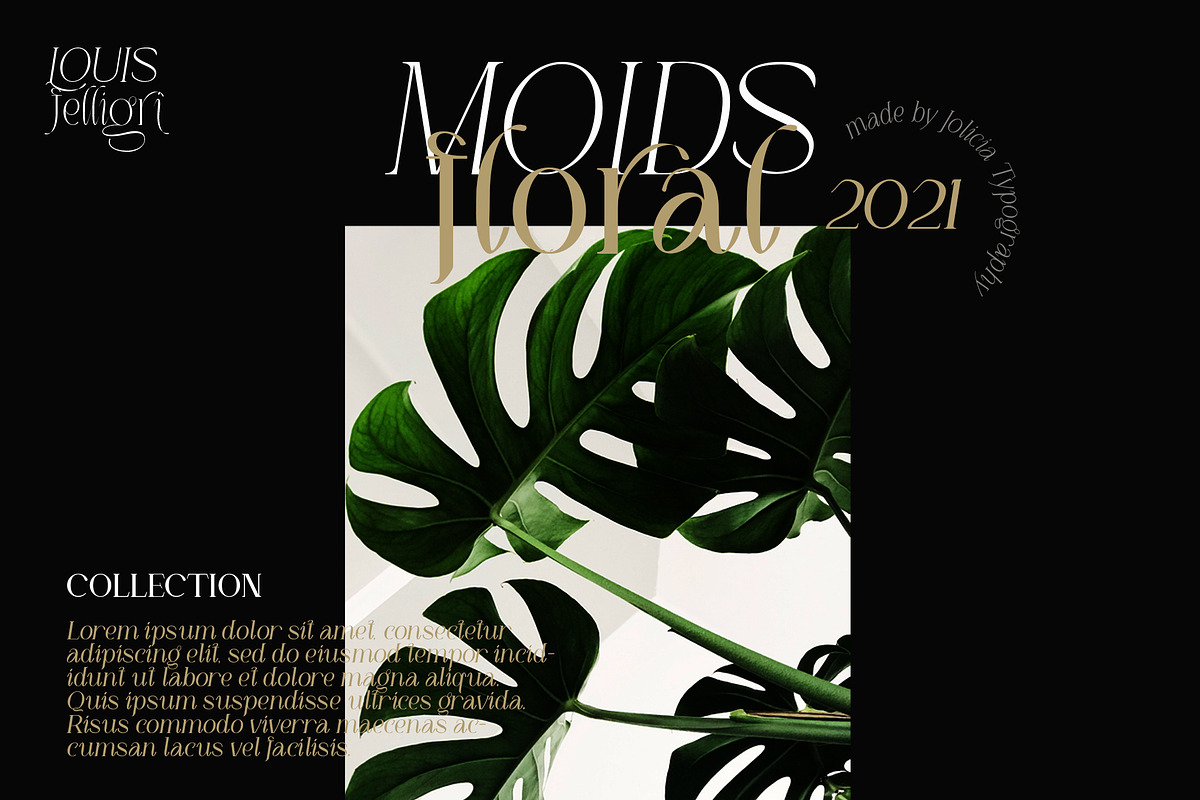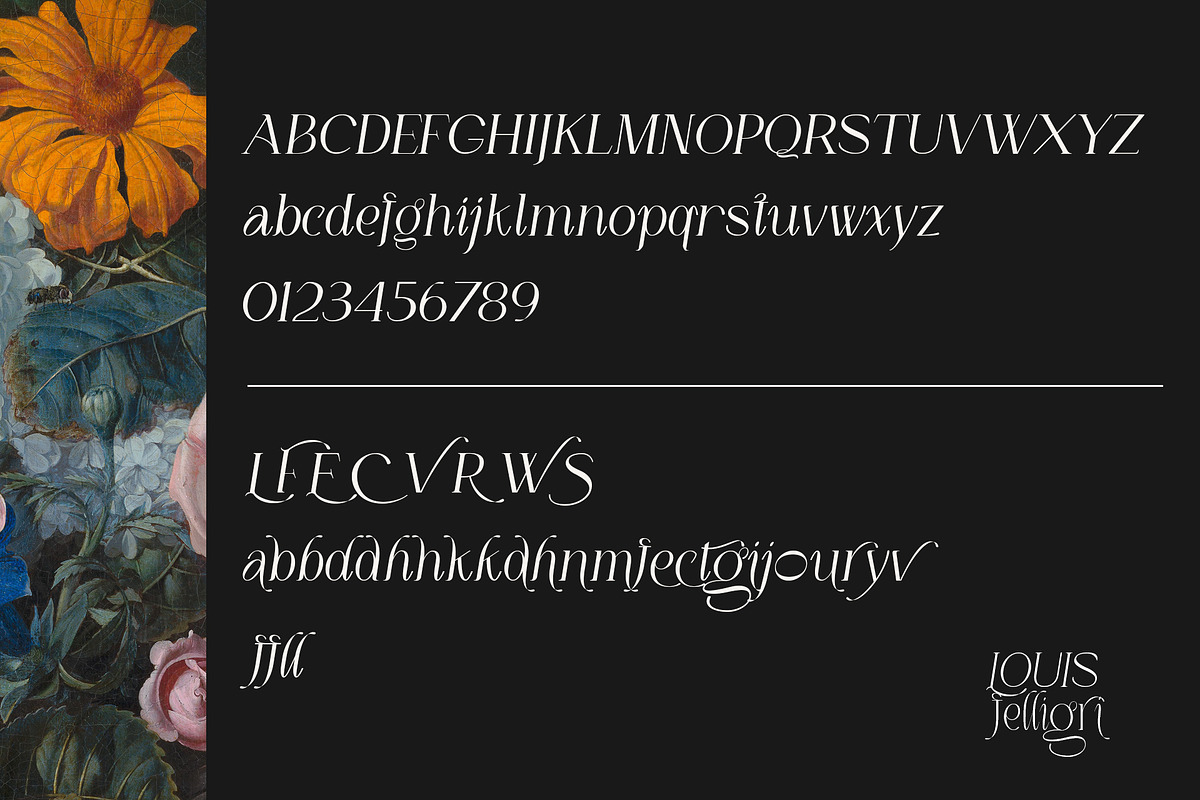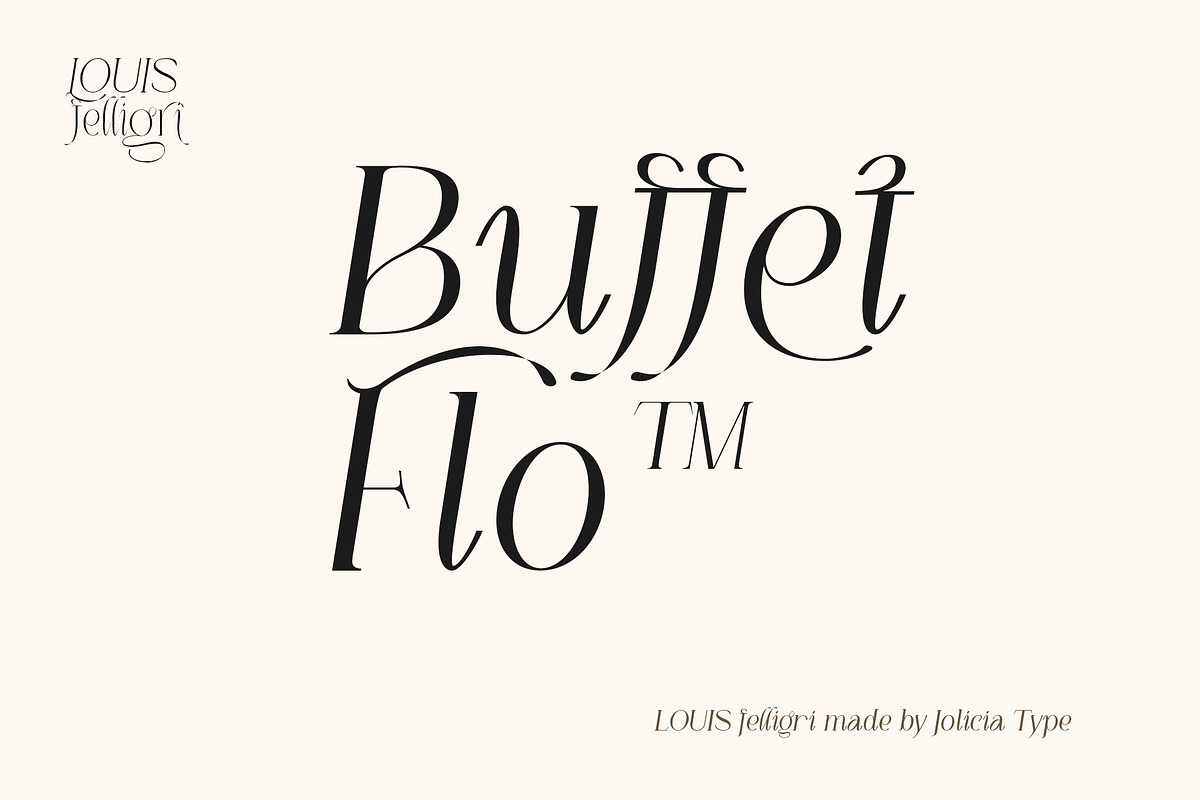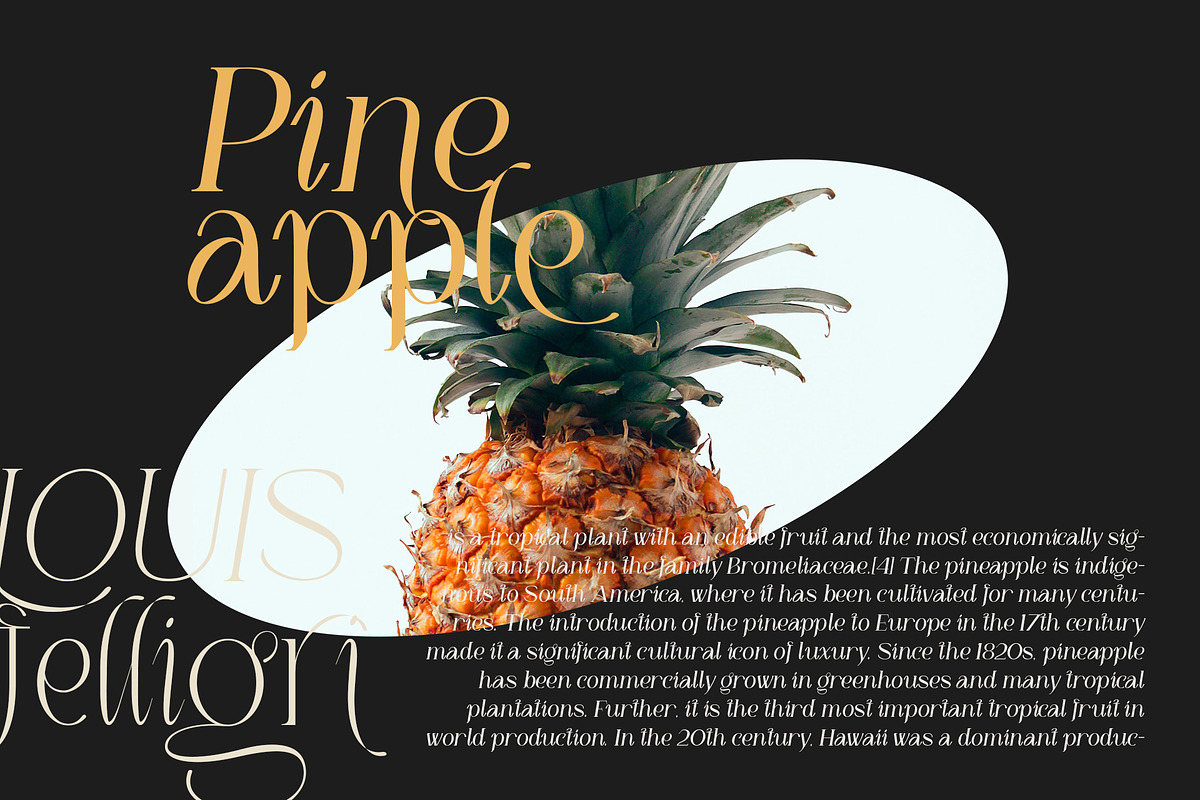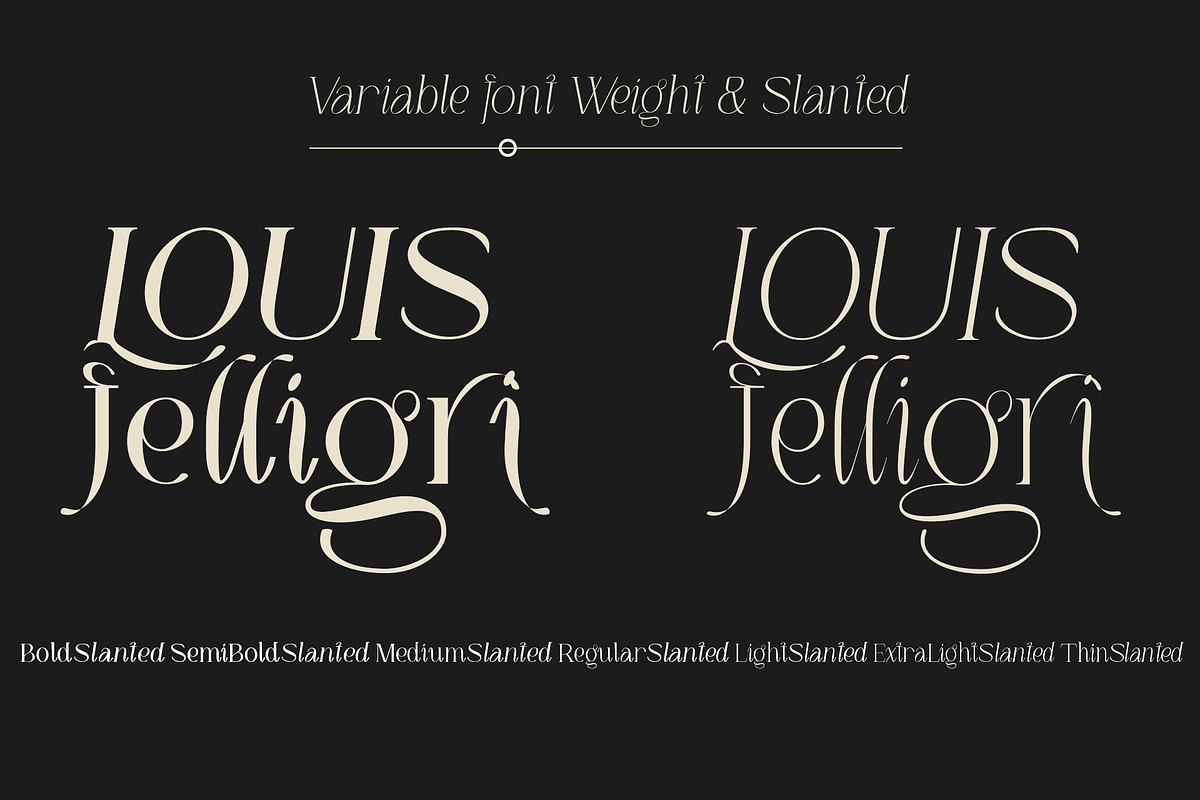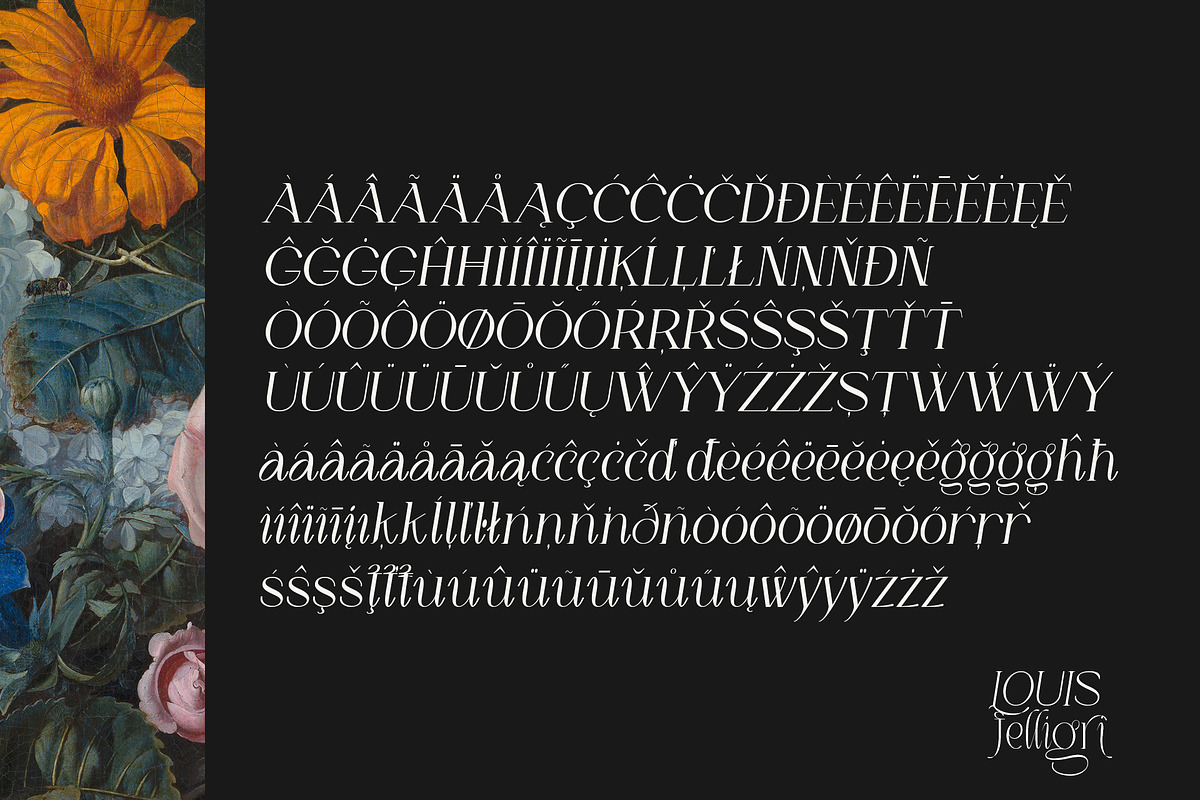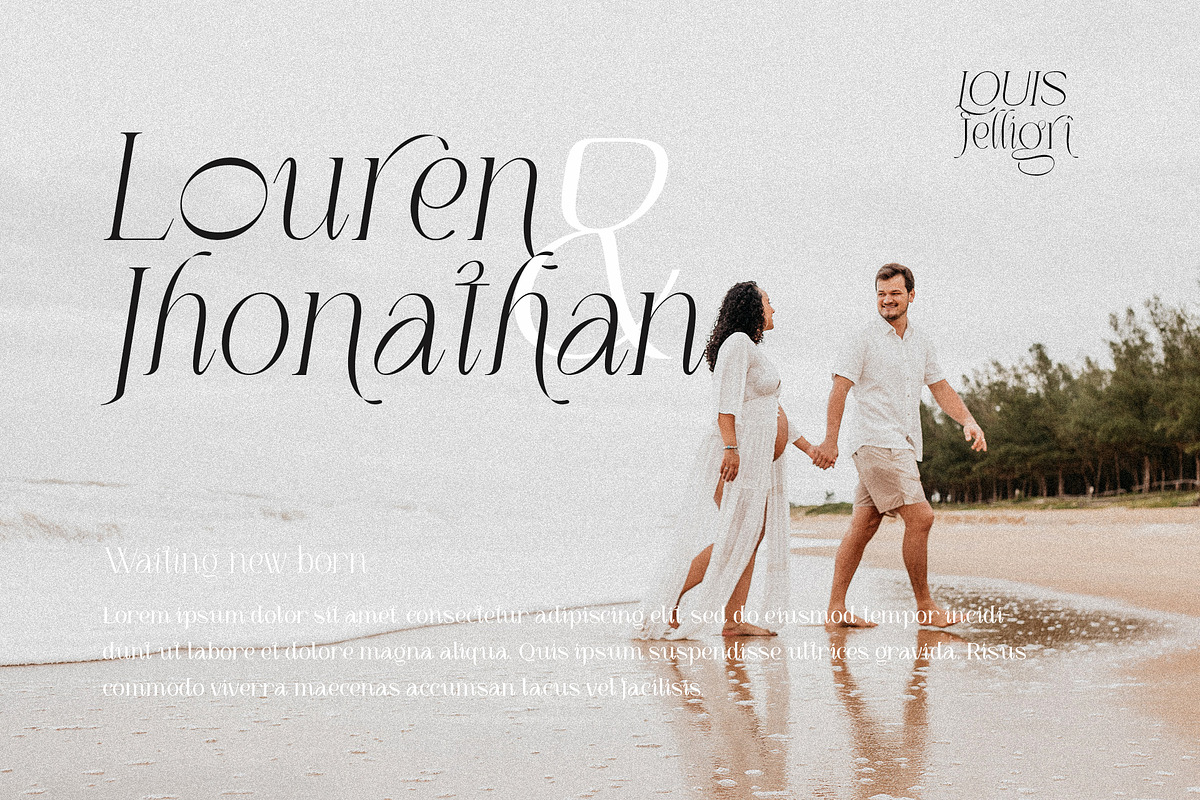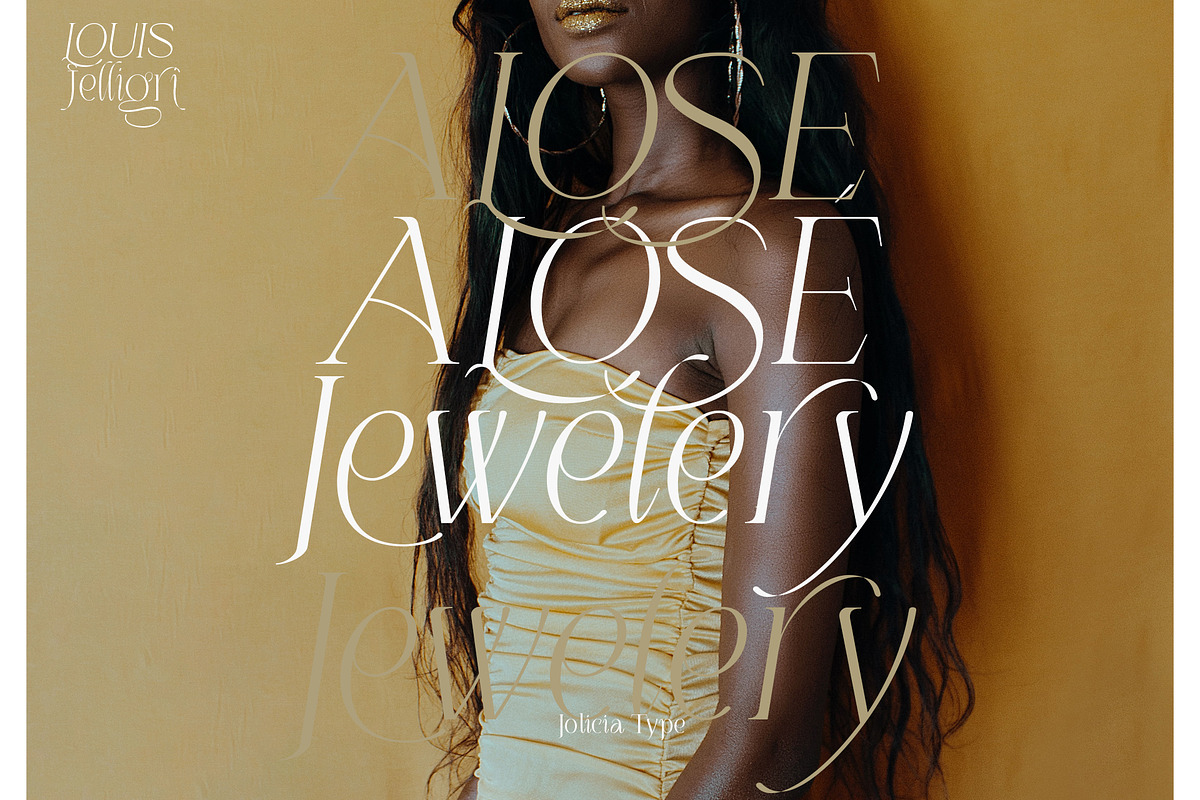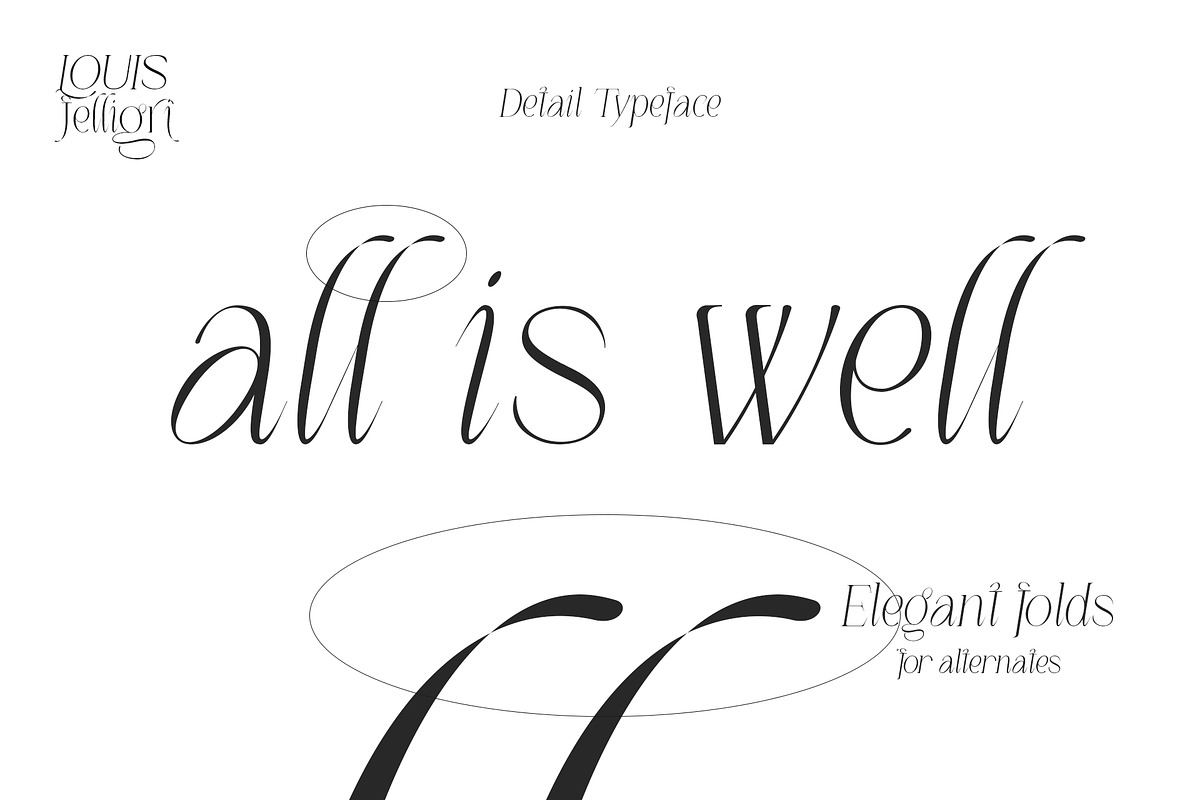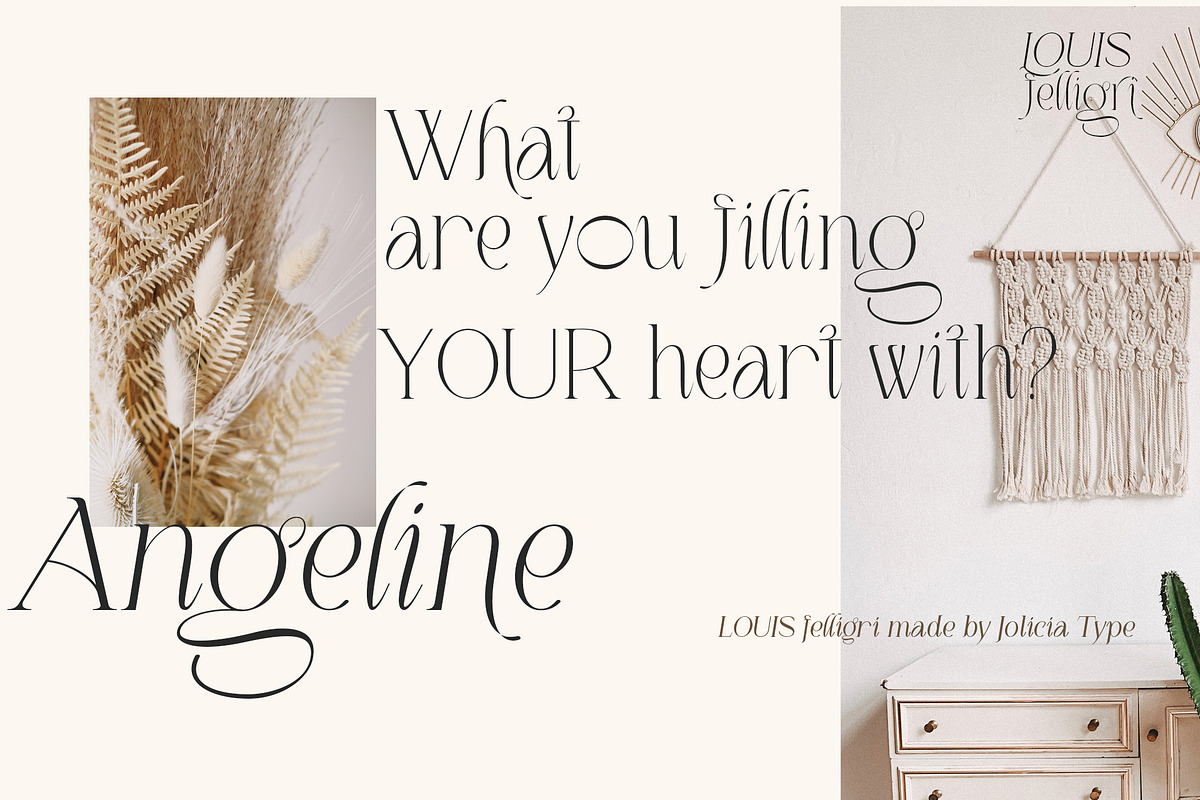
LOUIS felligri | Serif Display Font
LOUIS felligri is a modern display serif. This font is a variable typeface for weight By using the variable sliders in your design software you have a range of weight options in compatible software like Adobe Illustrator. Play around with individual letters to give your type a unique look. Included in this family are alternate characters to add even more styling options.
- Multilanguange
- Font Family totals 14 fonts
- Variable font